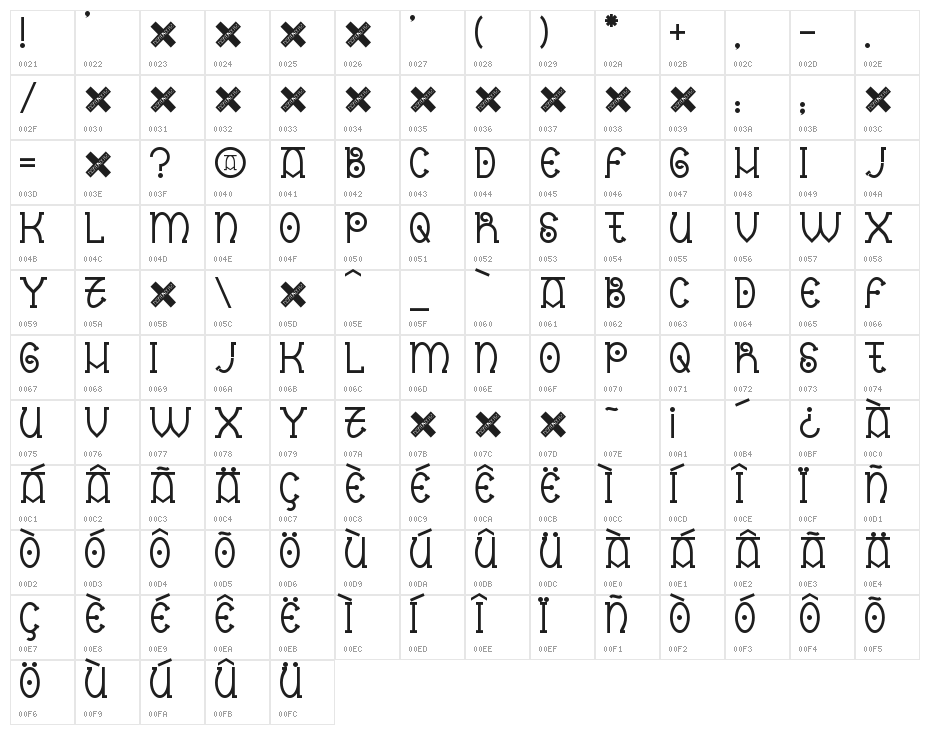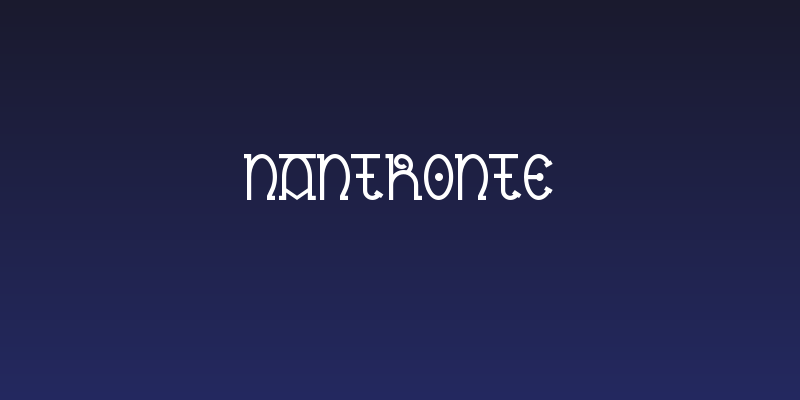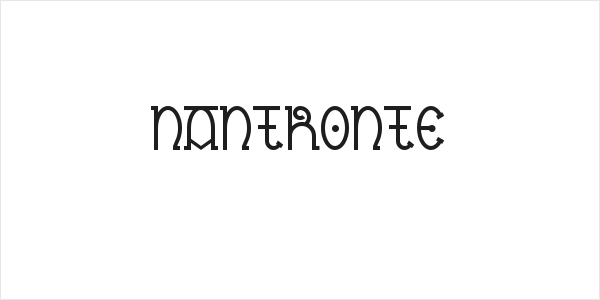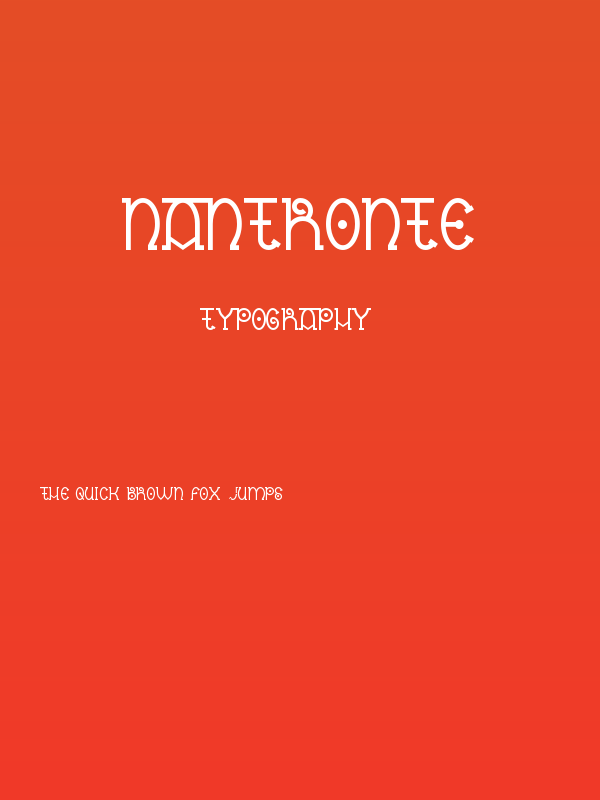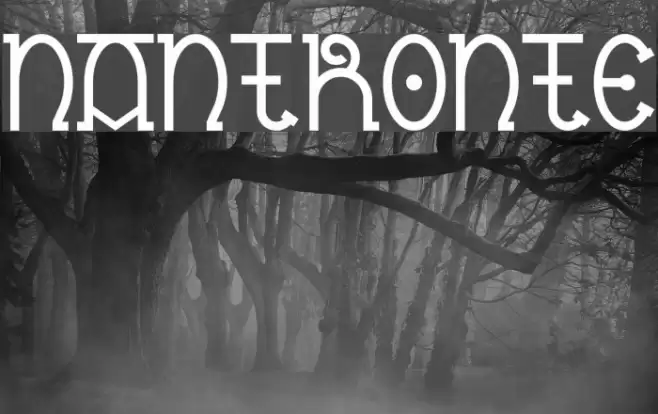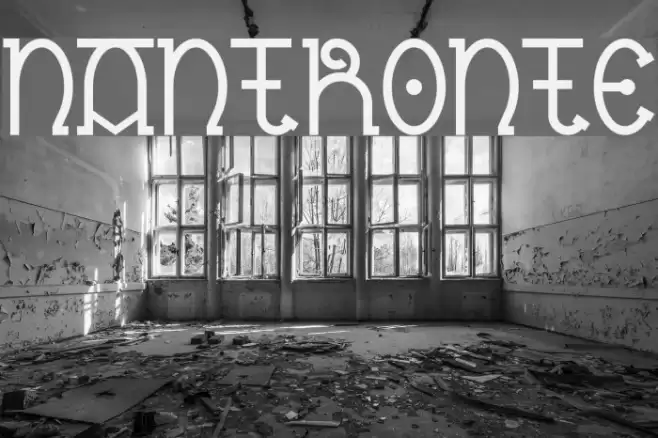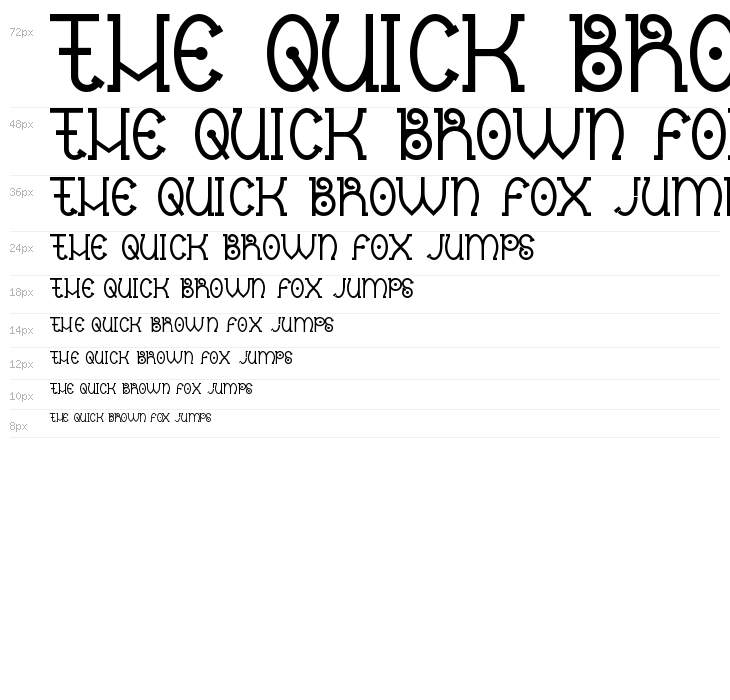
Nantronte Font
Nantronte Description
This font features a unique and decorative style with a playful twist. The characters are designed with intricate details, including swirls and geometric shapes, giving it a whimsical and artistic appearance. The uppercase letters exhibit a bold presence with distinct embellishments, while the lowercase letters maintain a consistent style that complements the uppercase. The numbers and special characters follow the same decorative theme, ensuring a cohesive look across all elements. This font is ideal for projects that require a touch of creativity and flair, making it suitable for artistic and expressive designs.
| Use Case | Logos, Headlines, Creative projects |
| Proposed Projects | Ideal for artistic projects, creative branding, invitations, and expressive design work. |